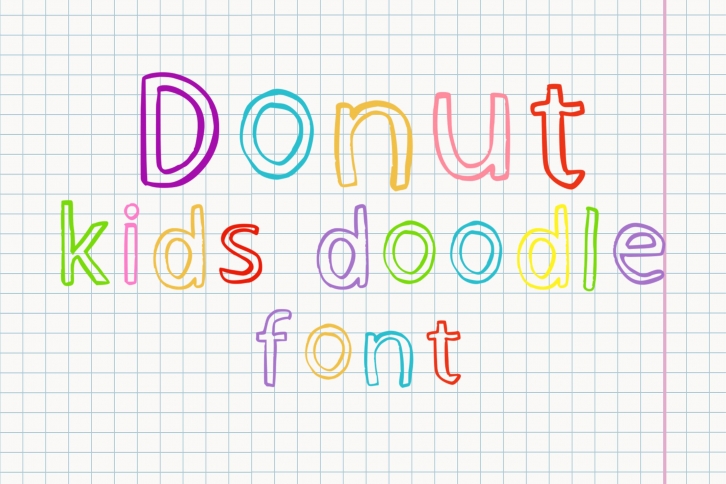
Donut Kids Doodle is a cute hand-drawn outlined display font, great for creating outstanding designs. Its informal style and casual vibe will make this font a go-to choice for each of the creations that require a relaxed touch.